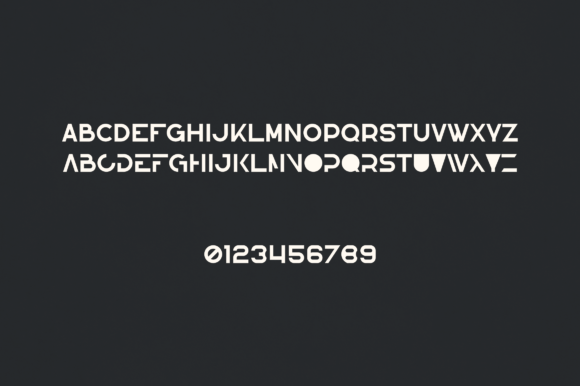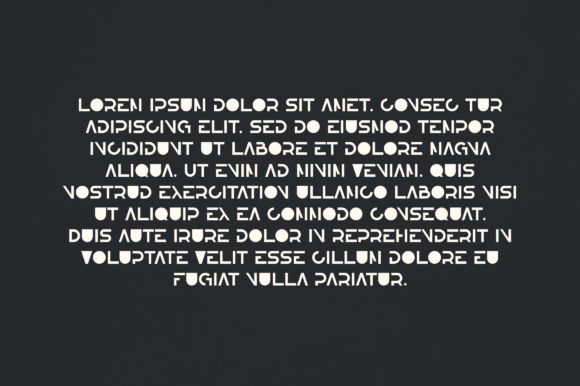
Discover the Elegance of Amelia Font: Elevate Your Designs with a Unique Sans Serif Typeface
Are you tired of using the same old fonts for your designs? Look no further than Amelia Font, an elegant and versatile sans serif font that is sure to make your typography truly unique. With its clean lines, sophisticated style, and exceptional readability, Amelia Font is the perfect choice for designers and crafters looking to add a touch of elegance to their projects.
What Makes Amelia Font So Special?
Amelia Font is more than just a font – it’s a design statement. Its sleek and modern sans serif design makes it perfect for a wide range of applications, from logos and branding to headlines and plain text. The font’s versatility is one of its standout features, allowing you to use it for everything from home-ware designs and product packaging to magazine headers and social media graphics.
One of the key benefits of Amelia Font is its ability to enchant every design it’s used in. Whether you’re looking to create a bold and eye-catching logo or a stylish text overlay for a background image, Amelia Font is sure to impress. Its elegant design and exceptional readability make it the perfect choice for designers who want to create stunning typography that will capture their audience’s attention.
Amelia Font is a font that can be used for a wide range of design projects, making it a valuable addition to any designer’s toolkit. Here are just a few examples of how you can use Amelia Font to elevate your designs:
- Branding projects: Use Amelia Font to create a unique and memorable logo that will help your brand stand out from the competition.
- Home-ware designs: Add a touch of elegance to your home-ware designs with Amelia Font, perfect for creating stylish labels, packaging, and more.
- Product packaging: Make your product packaging stand out with Amelia Font, a font that is sure to grab attention and leave a lasting impression.
- Magazine headers: Use Amelia Font to create stunning magazine headers that will draw readers in and make your content stand out.
- Text overlays: Add a touch of style to your background images with Amelia Font, perfect for creating eye-catching text overlays that will capture your audience’s attention.
Why Choose Amelia Font?
With so many fonts to choose from, why should you choose Amelia Font? Here are just a few reasons why Amelia Font stands out from the crowd:
- Elegant design: Amelia Font features a sleek and modern sans serif design that is sure to add a touch of elegance to any design.
- Exceptional readability: Amelia Font is designed to be highly readable, making it perfect for use in a wide range of applications, from body text to headlines.
- Versatility: Amelia Font is a versatile font that can be used for a wide range of design projects, making it a valuable addition to any designer’s toolkit.
- Unique style: Amelia Font has a unique style that is sure to make your designs stand out from the crowd.
If you’re looking for a font that will elevate your designs and add a touch of elegance to your typography, look no further than Amelia Font. With its sleek and modern sans serif design, exceptional readability, and versatility, Amelia Font is the perfect choice for designers and crafters who want to create stunning designs that will capture their audience’s attention. So why wait? Discover the elegance of Amelia Font today and take your designs to the next level!